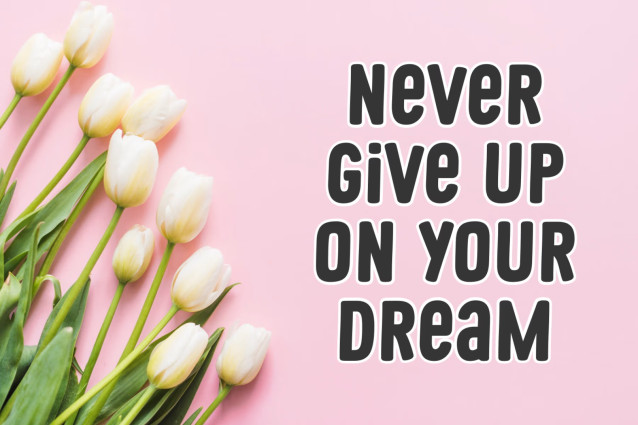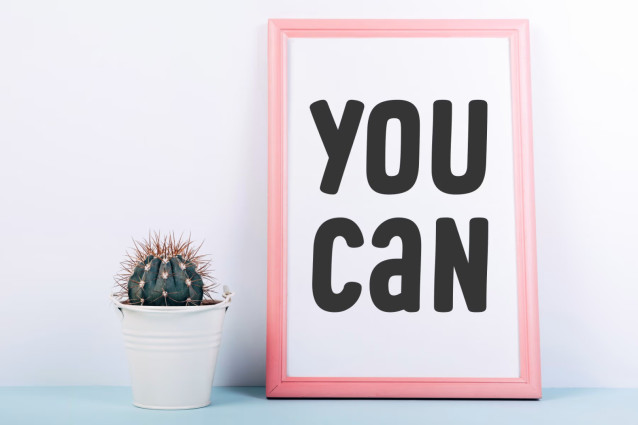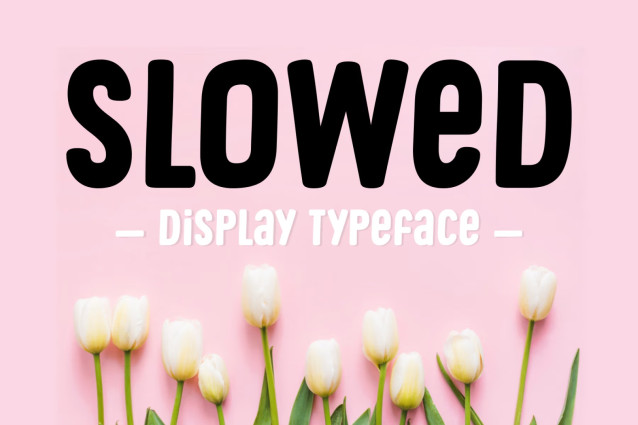
Slowed Font
Slowed is a cute and natural display font. It will look stunning on any food menu, poster, flyer, print, and much more! Use this font for your designs and explore its endless possibilities.